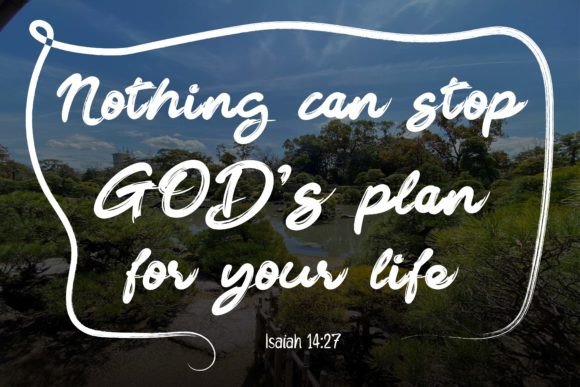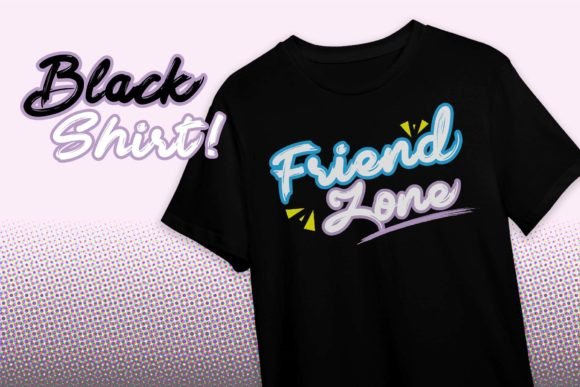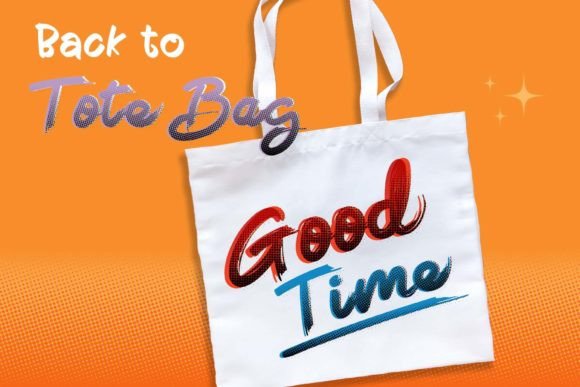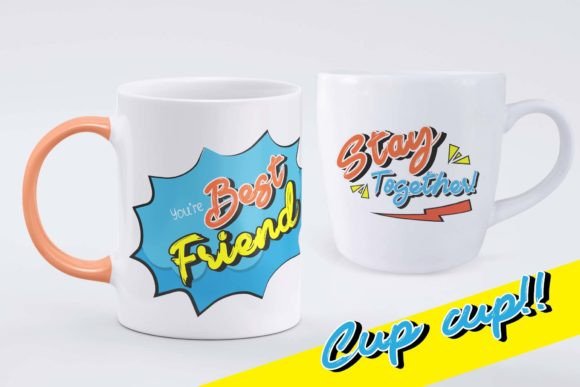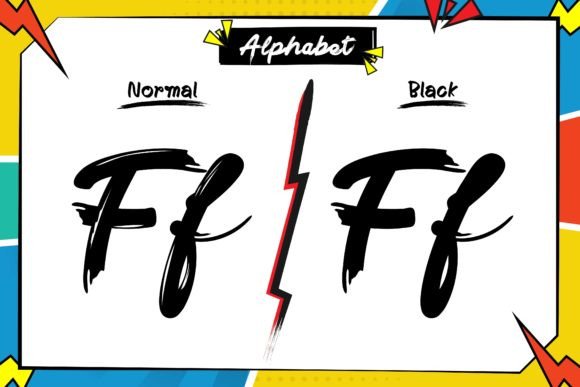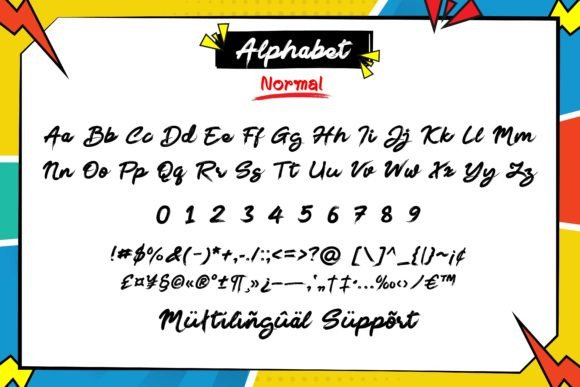
Discover the Fun and Playful Friendster Font: Elevate Your Designs with a Vintage Handwritten Style
Are you tired of using the same old fonts in your designs? Do you want to add a touch of personality and whimsy to your creations? Look no further than the Friendster Font, a vintage handwritten font that’s fun, cool, and expertly designed to make your projects stand out.
What is Friendster Font?
Friendster Font is a unique and charming font that’s perfect for designers and crafters who want to add a personal touch to their work. With its playful and handwritten style, this font is sure to bring a smile to your audience’s faces. Whether you’re working on a branding project, creating social media graphics, or designing a greeting card, Friendster Font is the perfect choice.
Key Features of Friendster Font
- Vintage Handwritten Style: Friendster Font boasts a distinctive vintage handwritten style that’s perfect for creating unique and eye-catching designs.
- Fun and Cool: This font is designed to be fun and cool, making it perfect for projects that require a playful touch.
- Expertly Designed: Friendster Font has been expertly designed to ensure that it looks amazing in a variety of contexts, from apparel branding to social media graphics.
- Versatile: This font is incredibly versatile and can be used on a wide range of projects, including apparel branding, daily quotes, tote bag or handbag branding, product packaging, cups, posters, social media graphics, and greeting cards.
How to Use Friendster Font in Your Designs
Friendster Font is incredibly easy to use and can be incorporated into a wide range of design projects. Here are a few ideas to get you started:
- Apparel Branding: Use Friendster Font to create unique and eye-catching apparel designs that will make your brand stand out.
- Social Media Graphics: Add a playful touch to your social media graphics with Friendster Font, making them perfect for Instagram, Facebook, and Twitter.
- Greeting Cards: Create personalized and charming greeting cards with Friendster Font that’s perfect for birthdays, holidays, and special occasions.
- Product Packaging: Use Friendster Font to add a touch of personality to your product packaging, making it stand out on store shelves.
- Posters and Flyers: Create eye-catching posters and flyers with Friendster Font that’s perfect for promoting events, sales, and more.
Benefits of Using Friendster Font
There are many benefits to using Friendster Font in your designs, including:
- Unique and Eye-Catching: Friendster Font is a unique and eye-catching font that will make your designs stand out from the crowd.
- Personal Touch: This font adds a personal touch to your designs, making them feel more approachable and friendly.
- Versatile: Friendster Font is incredibly versatile and can be used on a wide range of projects, making it a great addition to your font library.
Whether you’re a seasoned designer or a crafter just starting out, Friendster Font is the perfect choice for anyone looking to add a little fun and whimsy to their designs. So go ahead, get creative, and see what amazing things you can create with Friendster Font!